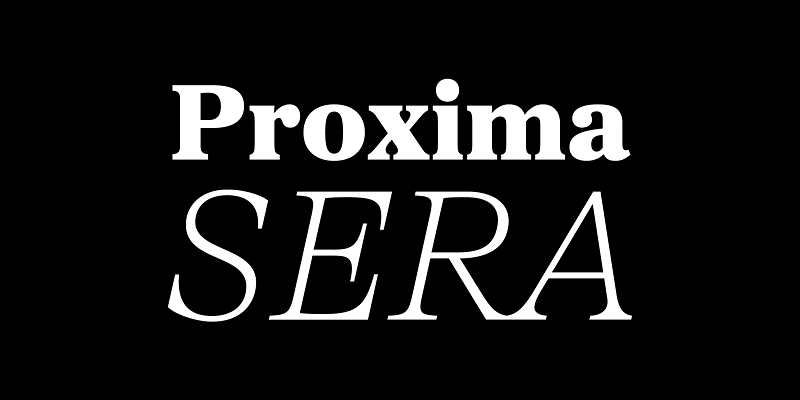
Proxima Sera Font Free Download is a modern serif typeface that blends the geometric simplicity of Proxima Nova with the classic elegance of traditional serif fonts. With its clean lines, moderate contrast, and excellent legibility, it’s ideal for editorial layouts, branding, websites, and corporate communications that require a contemporary yet refined tone.
Designed to work beautifully in both display and body text, Proxima Sera offers a wide range of weights and styles, making it versatile for any creative project. It pairs seamlessly with sans-serif fonts and integrates effortlessly with design platforms like Adobe InDesign, Figma, and Canva.